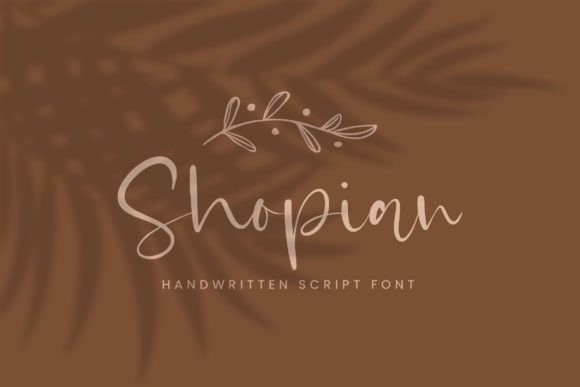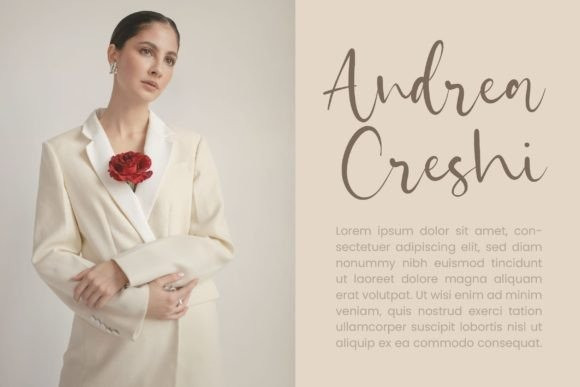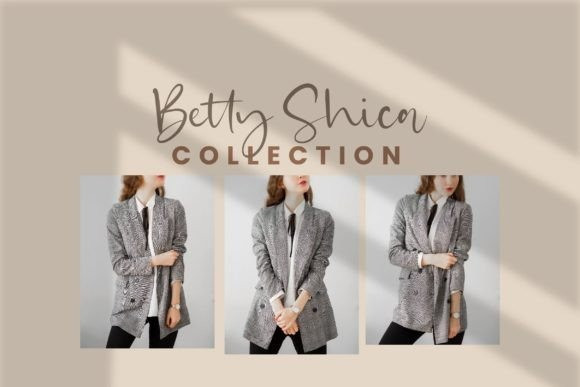
Shopian Font
Shopian is a sweet, relaxed, and timeless handwritten font. This gentle font will look gorgeous on a variety of design ideas. It will add a joyful and romantic touch to each of your projects!